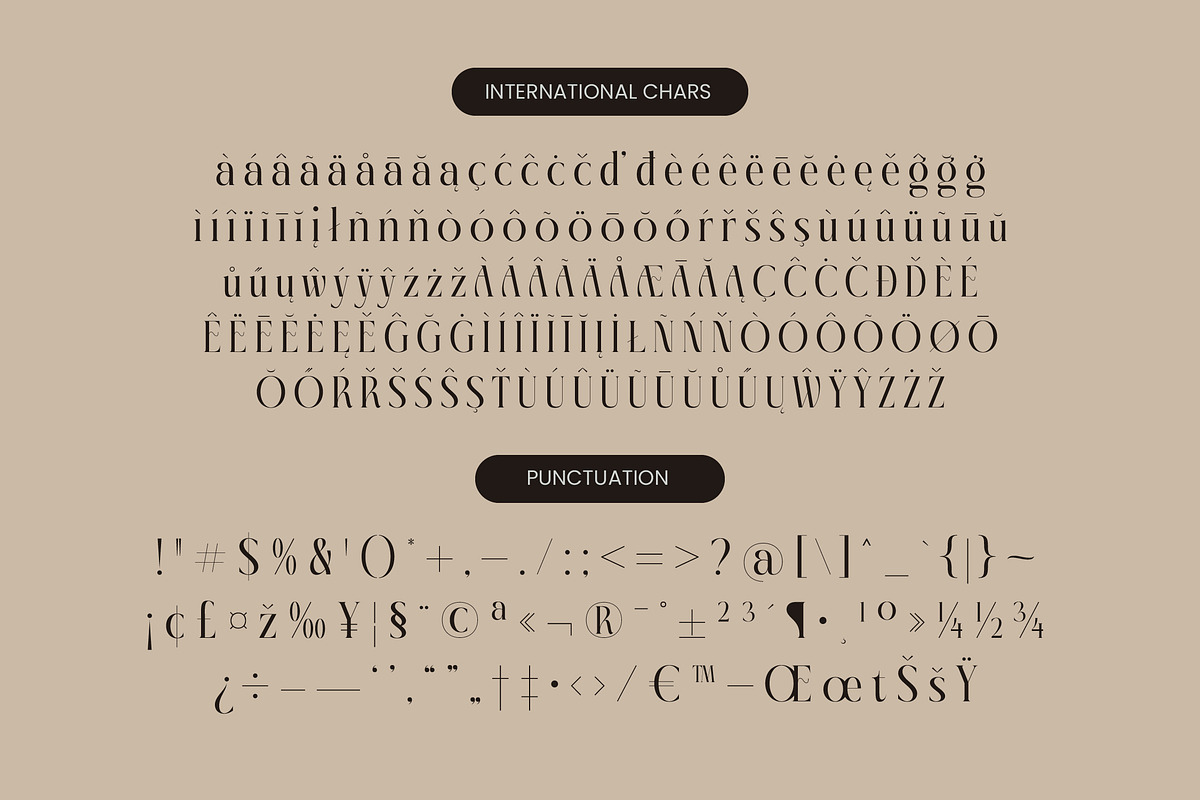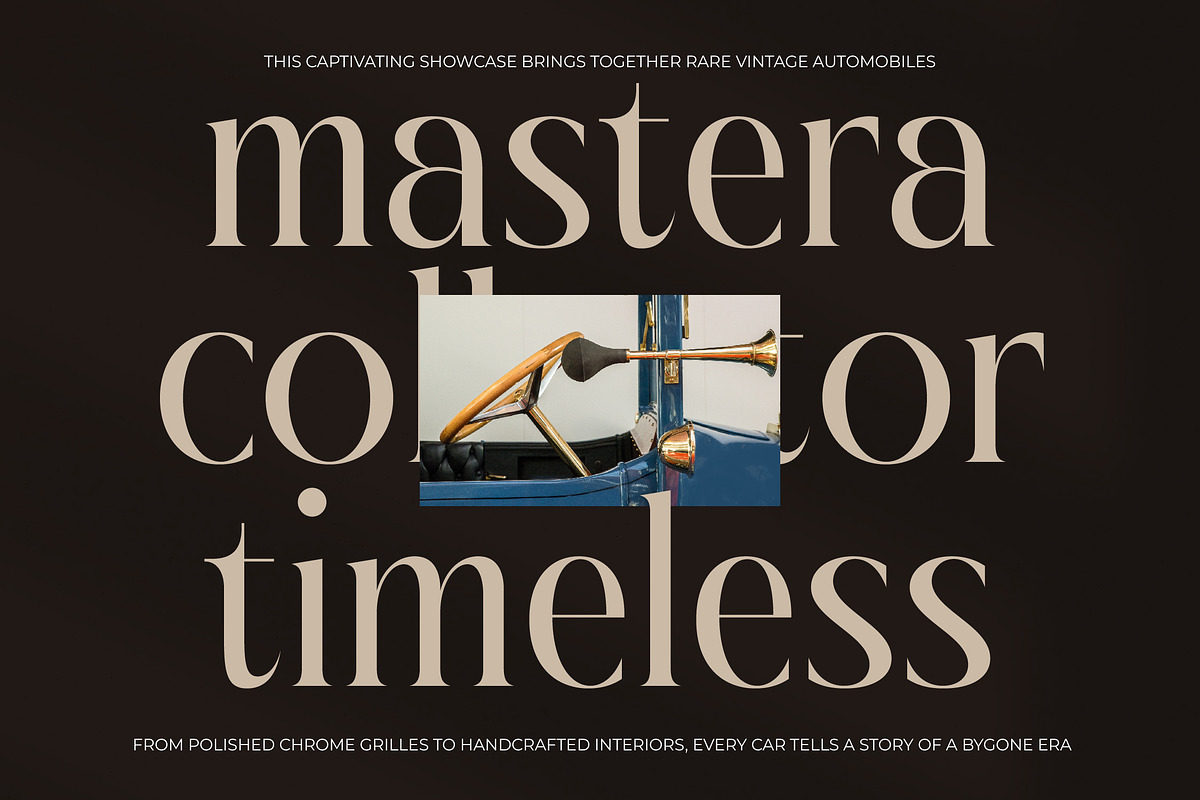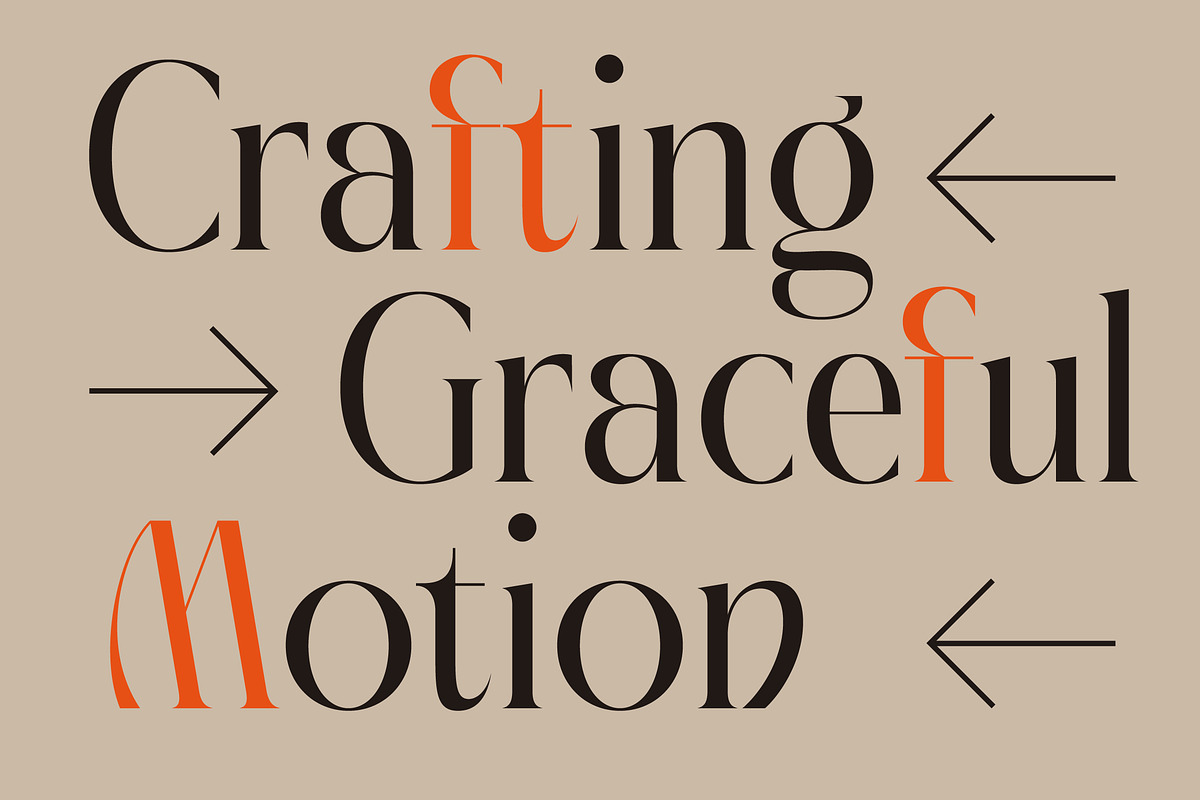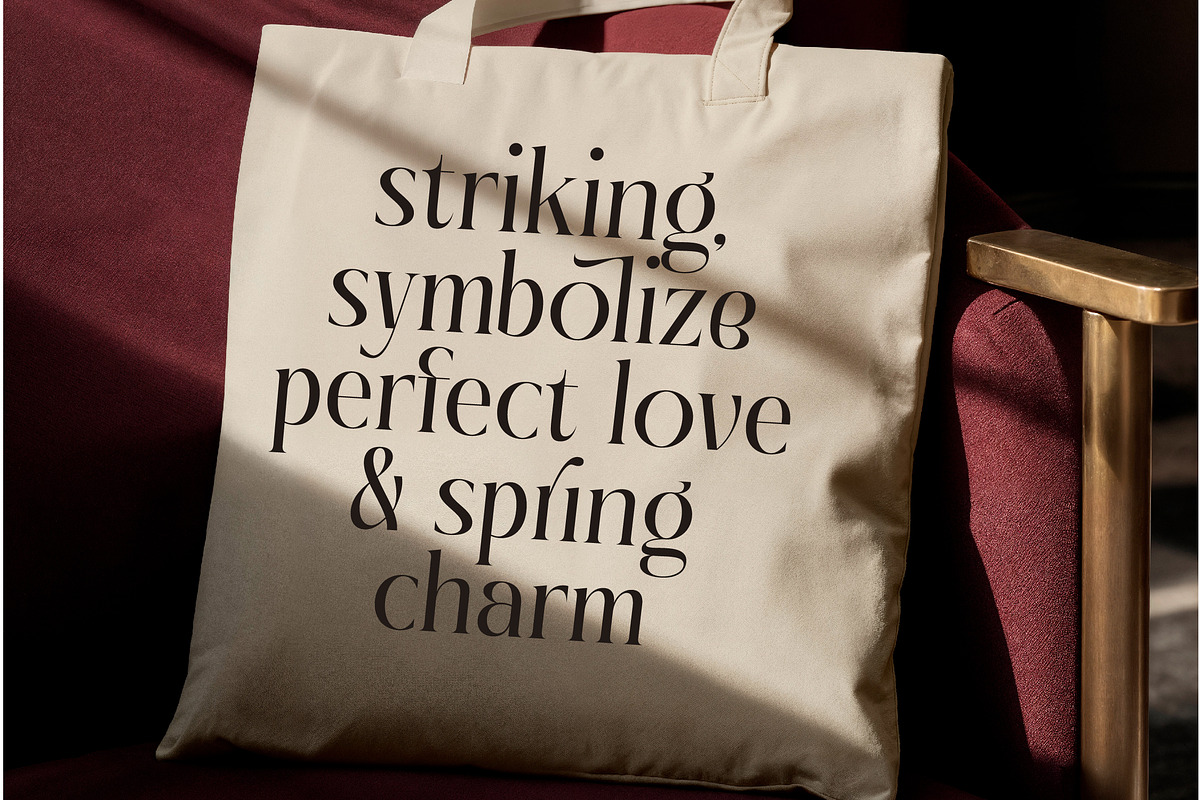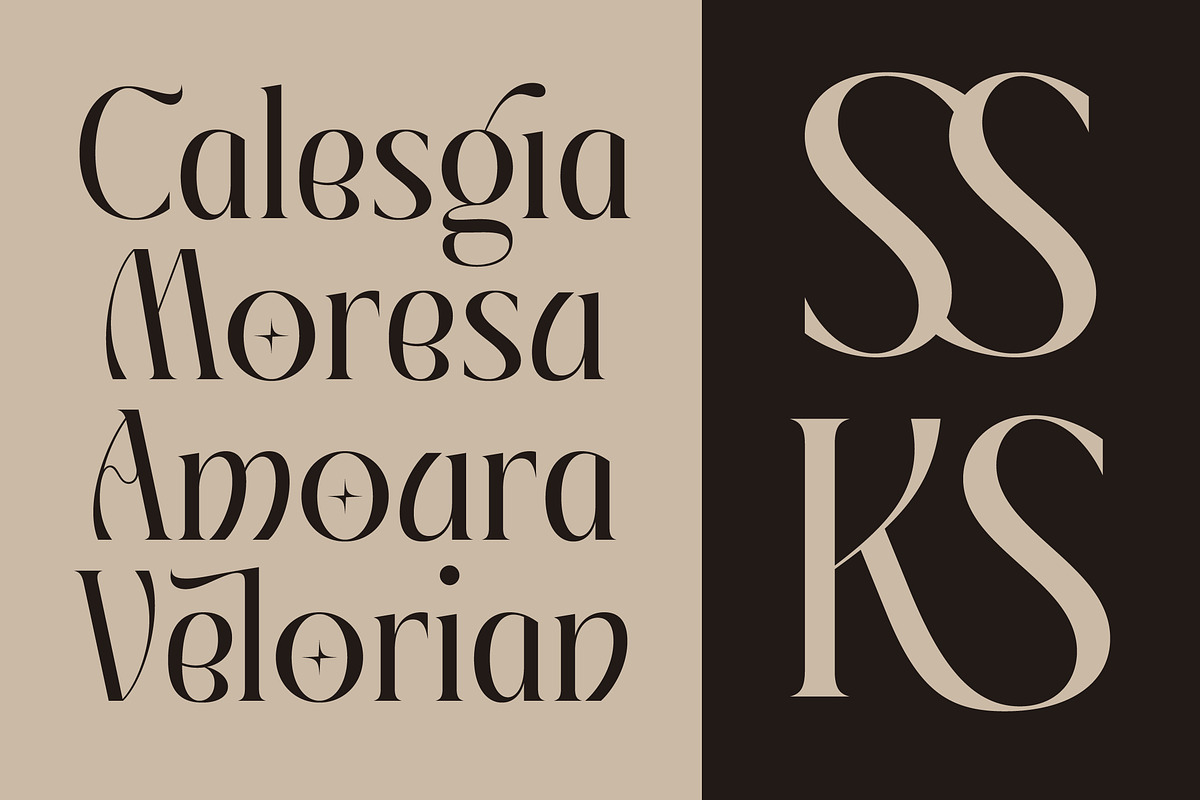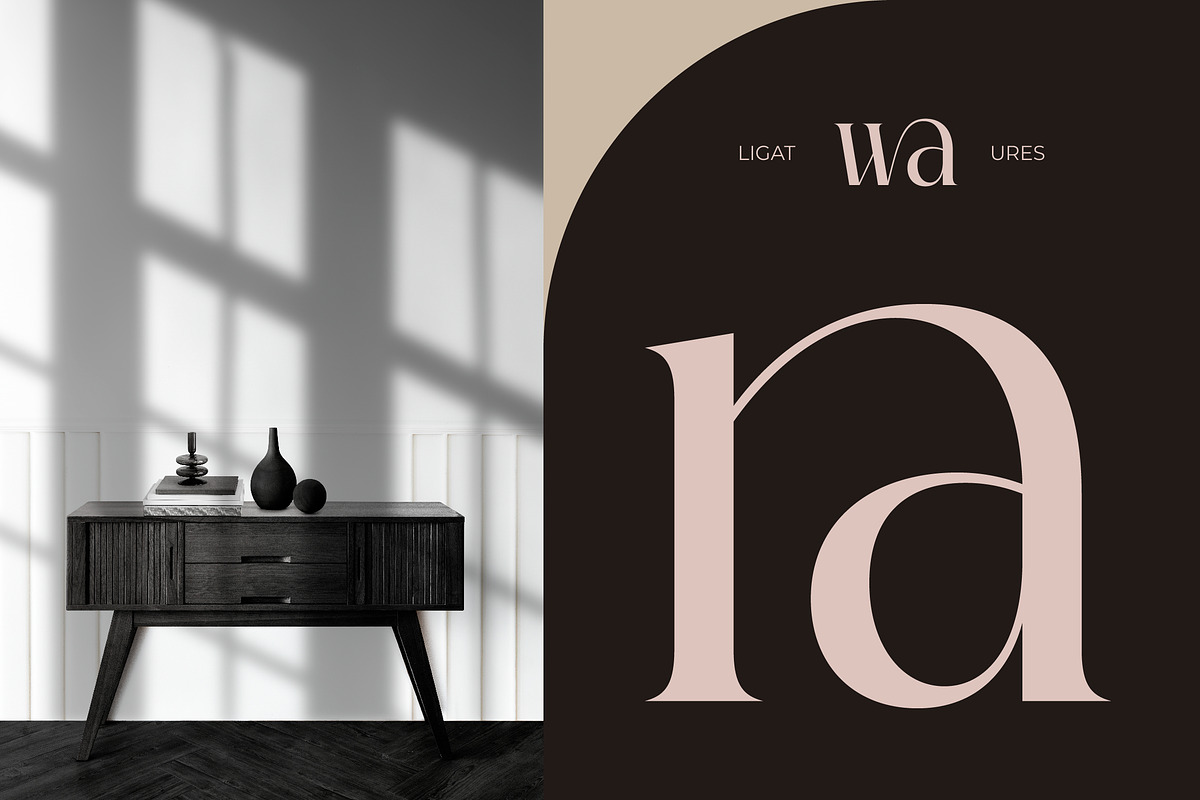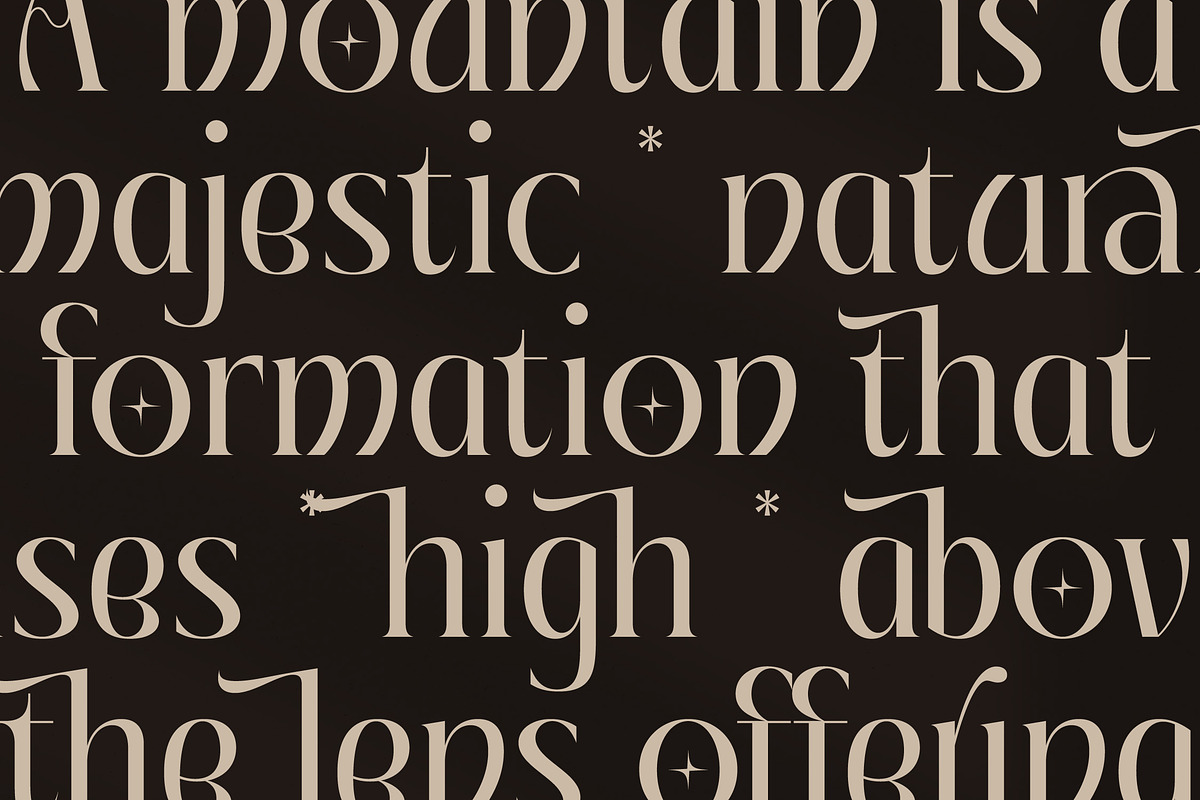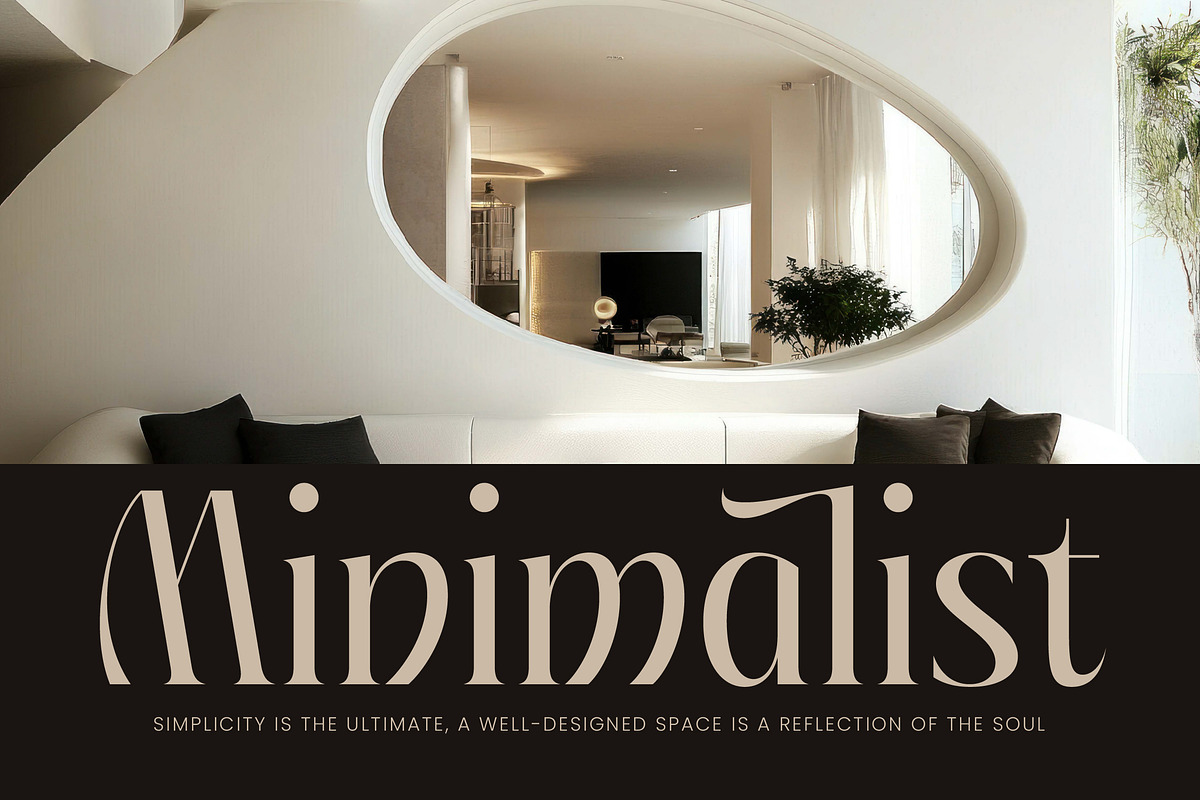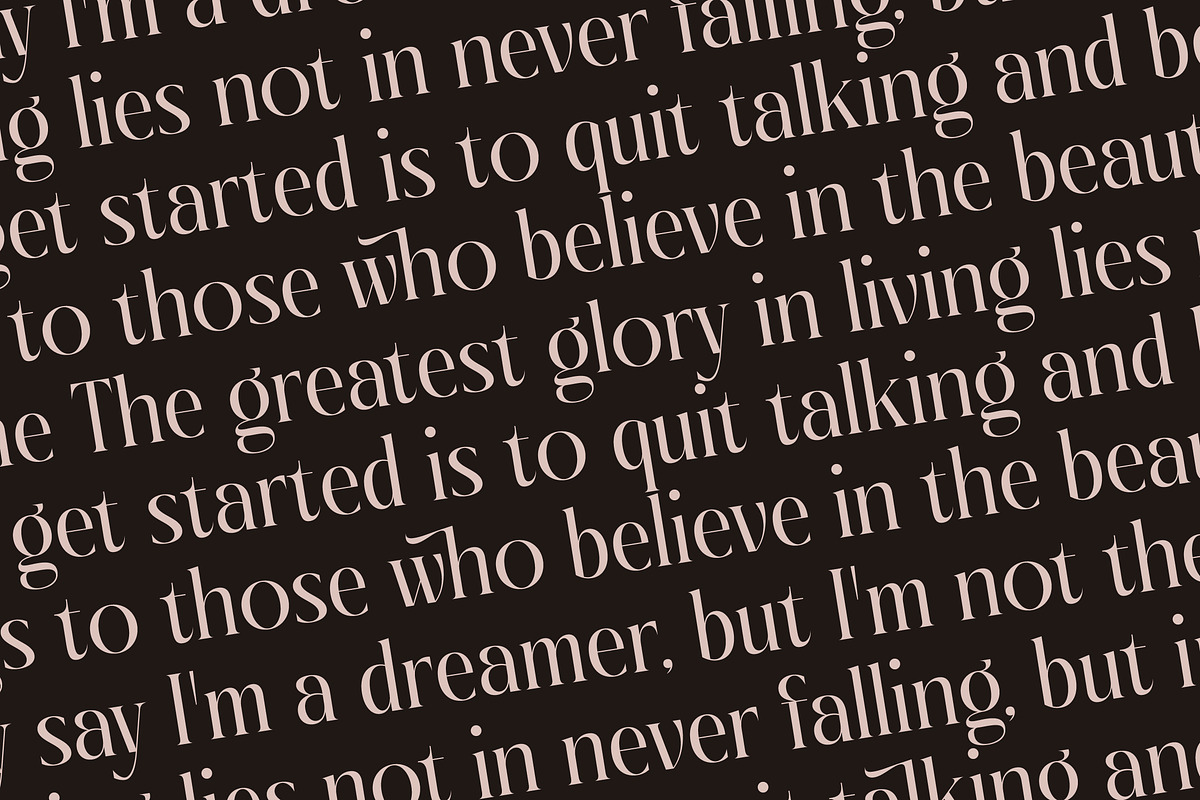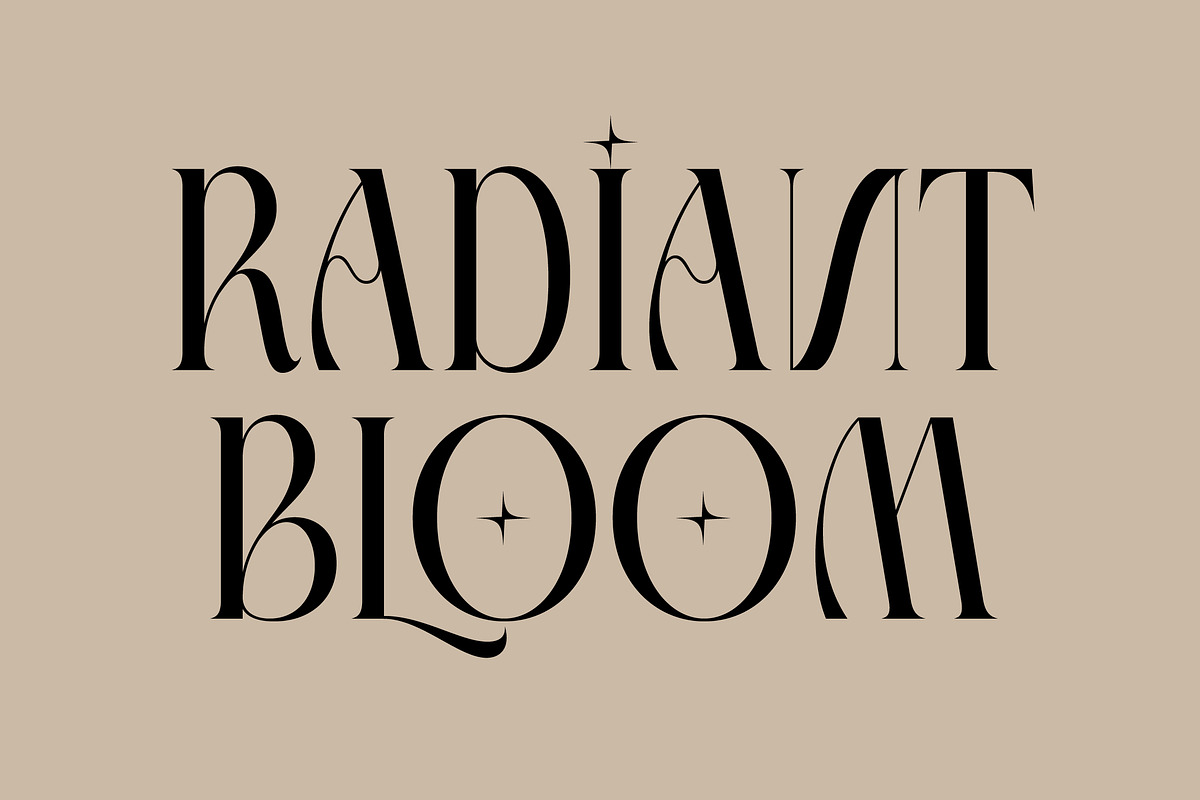
Giftagi Elegant Modern Serif
Step into a world of refined elegance with Giftagi, a typeface designed to infuse your projects with a sense of high-end sophistication and modern charm. This font serves as a bridge between classic aesthetics and contemporary flair, ensuring your message is delivered with poise.
Inspired by the polished aesthetics of vintage luxury magazines and the delicate brilliance of celestial motifs, this font carries an aura of timeless beauty. Its fluid lines and sharp serifs evoke the feeling of a bespoke boutique brand crafted for the elite, making every character feel like a piece of art.
Designed for maximum branding impact, Giftagi stands out as a premier modern serif display choice for designers seeking luxury typography. Its high-contrast serif strokes and refined terminals create a sophisticated editorial font experience that is both bold and exceptionally graceful.
As the modern serif trend continues to dominate high-end design, Giftagi meets the demand for character-driven typography. This typeface is a versatile addition to any professional toolkit, perfectly aligning with the current wave of editorial display fonts used in global fashion houses and high-society events.
From the initial concept of logo design to the final touch on packaging, this font excels in branding projects that require a touch of class. It is the ideal choice for wedding invitations, high-end fashion magazines, and bespoke editorial layouts that need a truly distinctive voice.
This font includes 416 glyphs, providing access to beautiful ligatures and creative alternates for unique layouts. It also features decorative swashes and supports multilingual projects with a full set of international characters to ensure global compatibility.
- Ligature 22 Alternate 62